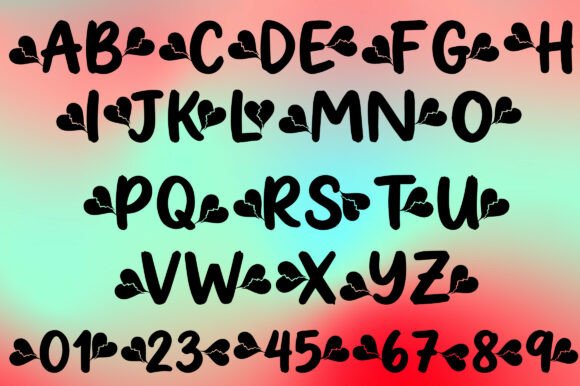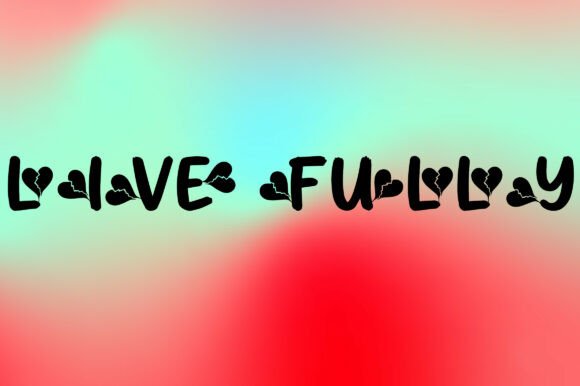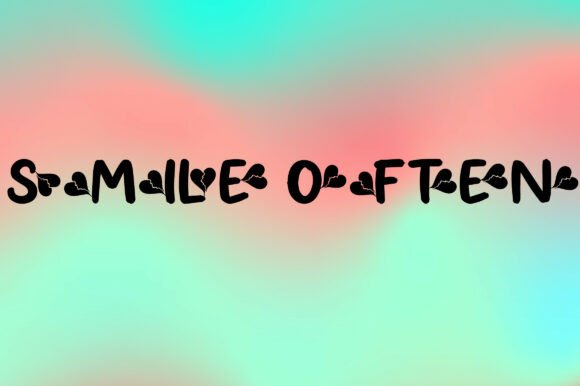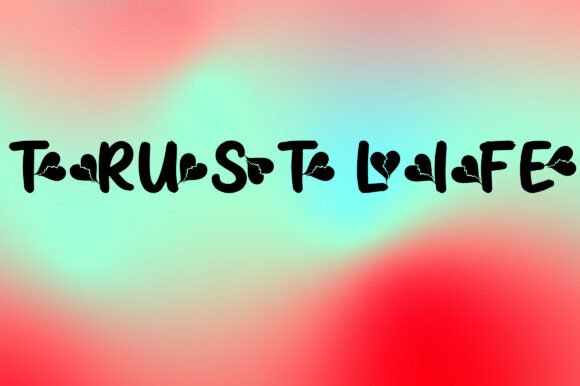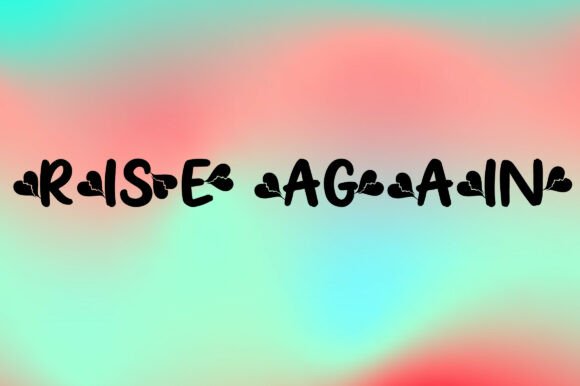
Where Creativity Meets Love: Discover the Magic of Bowwy Font
Have you ever sat down with a blank page or screen, staring at the endless possibilities, and suddenly felt the urge to create something beautiful and heartwarming? That’s exactly what happens when you fall in love with a font like Bowwy Font. This adorable typeface is more than just a font – it’s a way to express your love and personality through your designs.
Bowwy Font is a delightful, decorative font that brings a touch of sweetness and charm to any project. Whether you’re designing a logo, invitation, or social media graphic, this font is the perfect companion to help you create something truly special. With its playful style and lovely heart elements, Bowwy Font is a valuable addition to any designer’s toolkit, offering endless opportunities to express your creativity and imagination.
Bowwy Font Key Features
- Unique Characteristics: This font features a unique, hand-drawn design with subtle imperfections, giving it a distinctive and artistic feel.
- Kerning and Ligatures: The font includes carefully crafted kerning and ligatures, ensuring smooth and harmonious typography in both text and display settings.
Bowwy Font Review
I recently had the chance to work with the Bowwy Font and I must say, it’s a unique and interesting font. Here are my thoughts on what works well and what could be improved.
- The Bowwy Font has a very distinct and playful feel to it, which makes it perfect for creative projects, children’s books, or any design that requires a fun and whimsical touch.
- The font is highly customizable, allowing you to adjust the size, color, and even add special effects like glow or shadow.
- The Bowwy Font is also highly legible, even at small font sizes, making it suitable for a wide range of applications.
- The Bowwy Font may not be the best choice for formal or professional projects, as its playful nature may come across as unprofessional.
- The font can be quite busy, with many strokes and lines, which may make it difficult to read for those with visual impairments or in low-light conditions.
Overall, I think the Bowwy Font is a great addition to any designer’s toolkit, but it’s essential to use it in the right context. With its unique feel and high level of customization, it’s perfect for creative projects, but may not be the best choice for more formal or professional work.
To get the most out of Bowwy Font, use it in conjunction with other creative elements such as graphics, textures, and colors. Experiment with different font sizes, colors, and styles to create a unique and eye-catching design.
Bowwy Font is commonly used for:
- Baby shower invitations and decorations
- Personalized gifts and cards
- Event branding and marketing materials